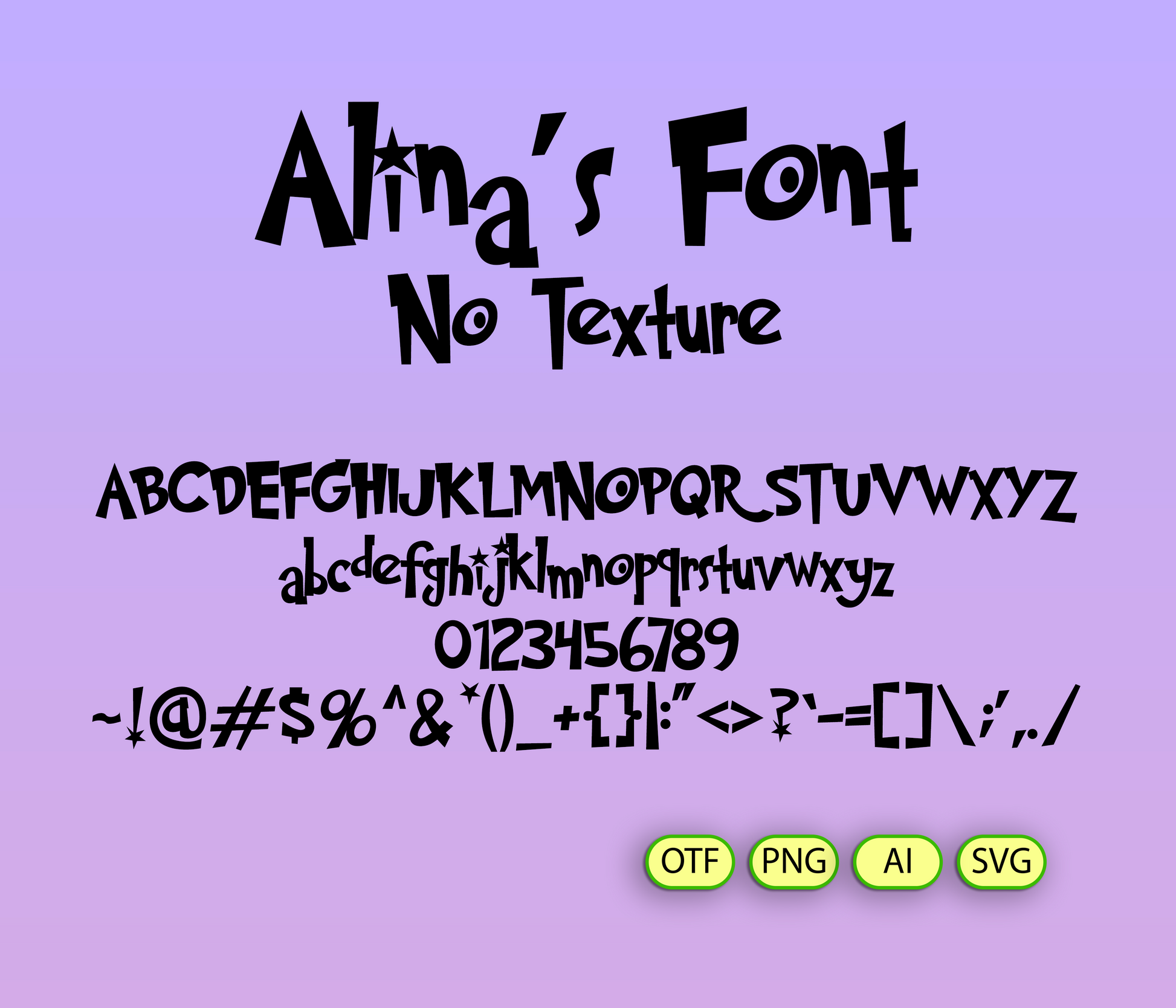
Wand-Wielding Godparents Font
Step into a world of zany magic with our Wand-Wielding Godparents font, capturing the chaotic charm of magical caretakers and their mischievous adventures. Perfect for creators, party planners, and designers seeking to add a sprinkle of topsy-turvy enchantment to their projects. Create whimsical invitations, quirky merchandise, or magical content that radiates playful chaos.
Our Wand-Wielding Godparents font features quirky curves and magical elements reflecting the chaotic spirit of wish-granting fun. Ideal for:
1. Event Promotions: Magical invites, posters, banners for wacky parties, wish-themed celebrations
2. Merchandise Design: T-shirts, posters, accessories capturing the essence of magical mayhem
3. Digital Media: Transform websites, blogs, social media with whimsical headers and graphics
4. Story Content: Perfect touch for wish-granting tales, magical journals, enchanted art
5. Personal Projects: Add zaniness to scrapbooking, DIY crafts, home decor inspired by magical chaos
Our font celebrates the magic of wishes and childhood chaos, empowering your designs with its mischievous spirit. Whether crafting party materials, designing merchandise, or adding a magical touch to personal projects, this font communicates the essence of magical mayhem and fun.